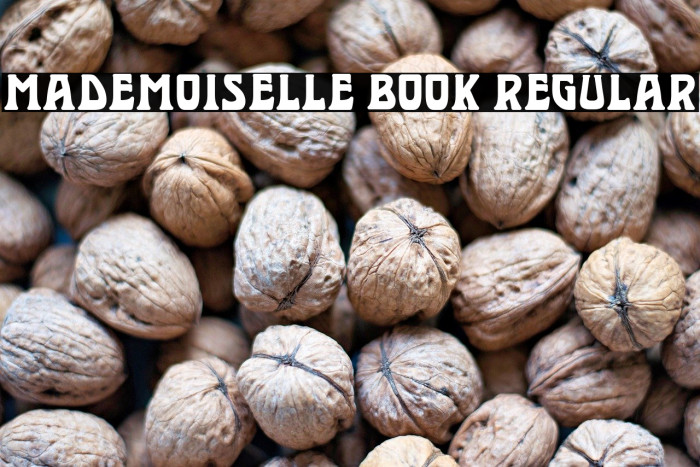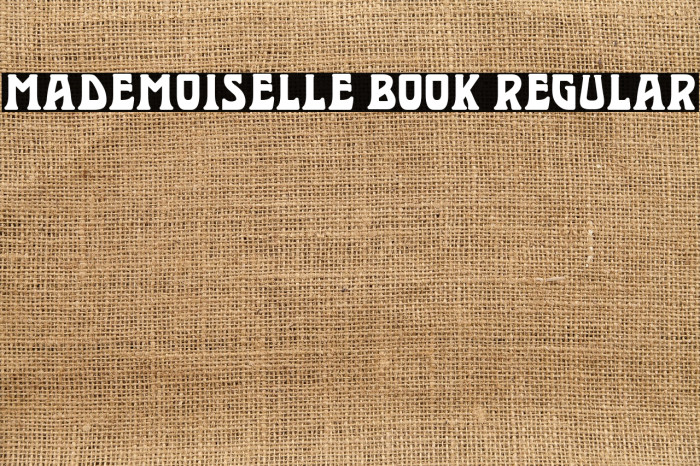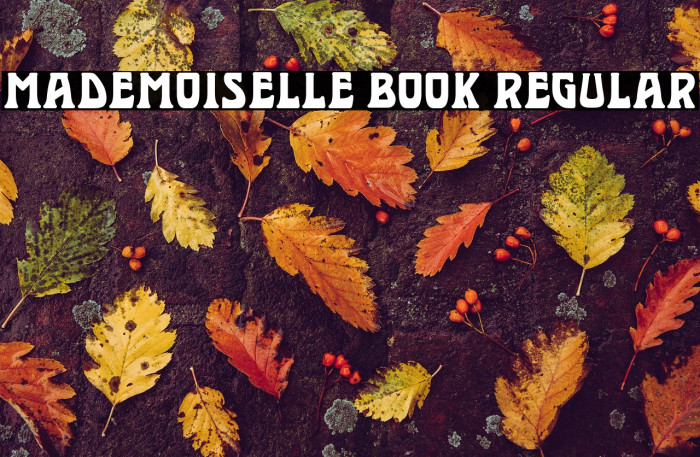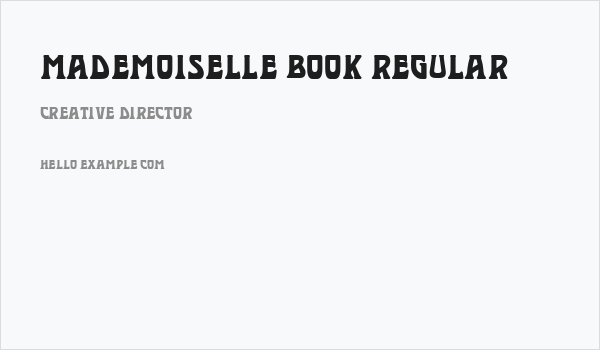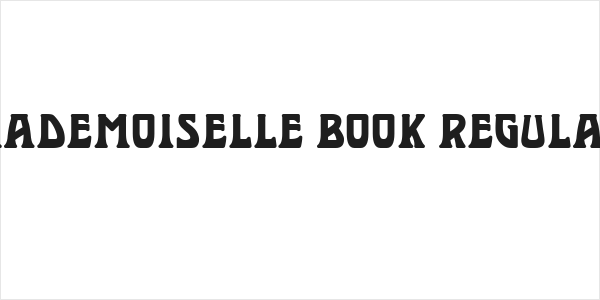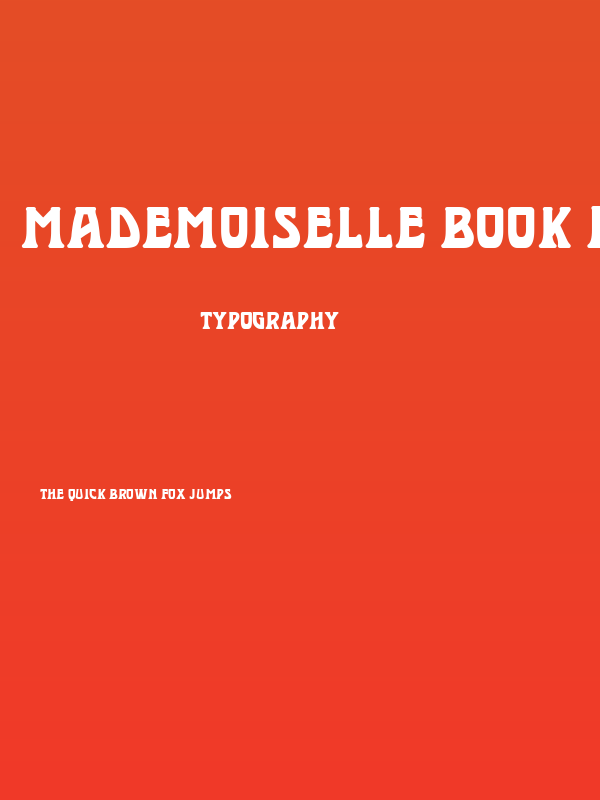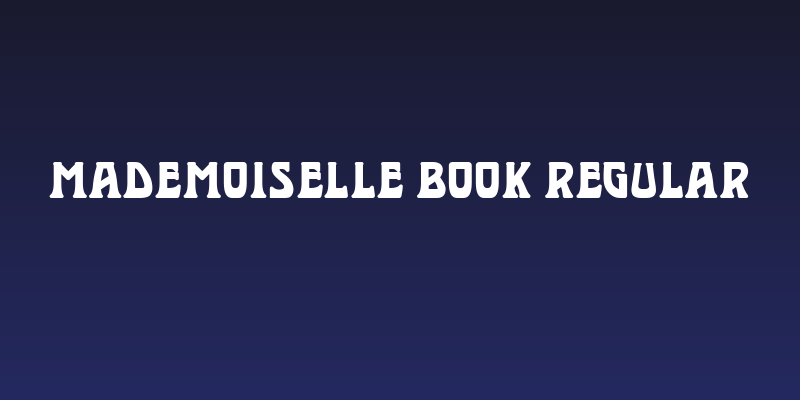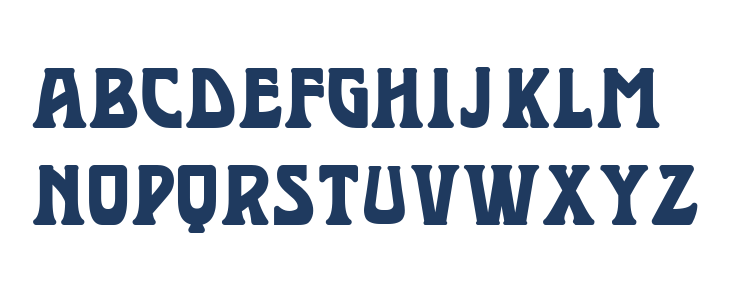
Mademoiselle Book Regular Font
Mademoiselle Book Regular Description
This font features a bold and decorative style with a strong presence. The characters are uniquely shaped with a slight curvature and pronounced serifs, giving it a distinctive and artistic flair. The uppercase letters are particularly striking, with a uniform height and width that create a cohesive look. The font's design is reminiscent of vintage signage, making it ideal for projects that require a touch of nostalgia or a bold statement. The overall appearance is both classic and modern, suitable for a variety of creative applications.
| Proposed Projects | Ideal for branding, posters, headlines, and any design requiring a bold, vintage touch. |